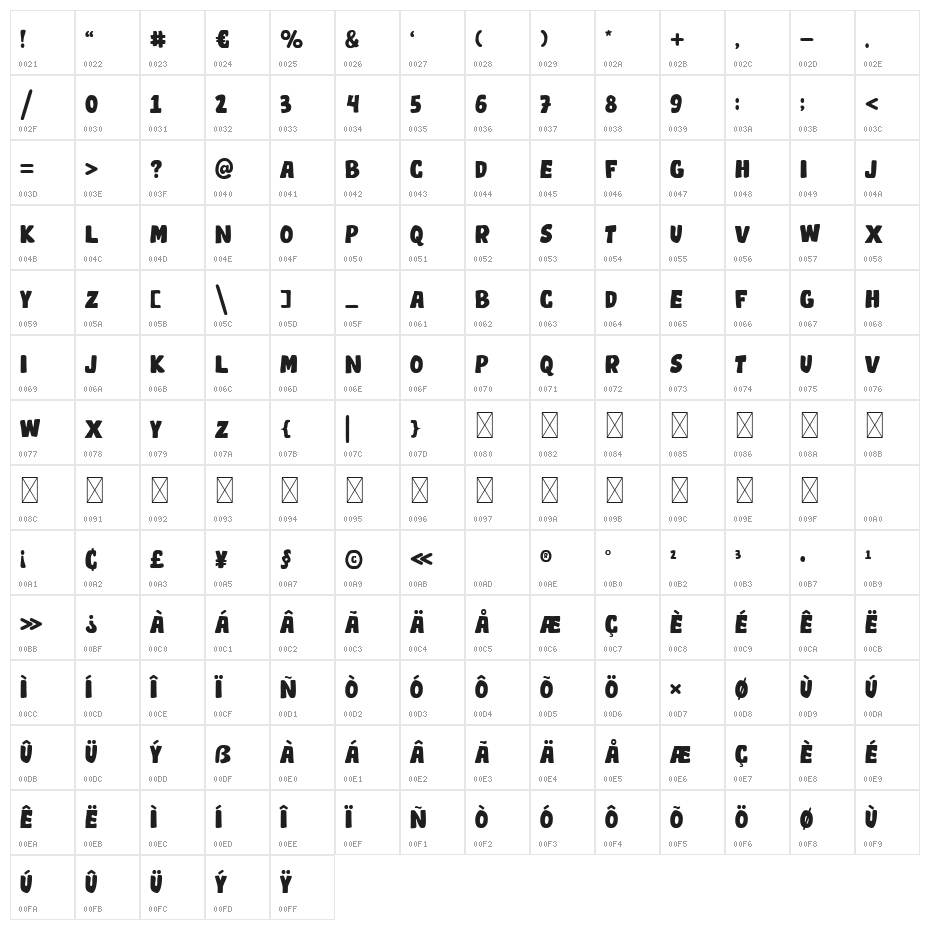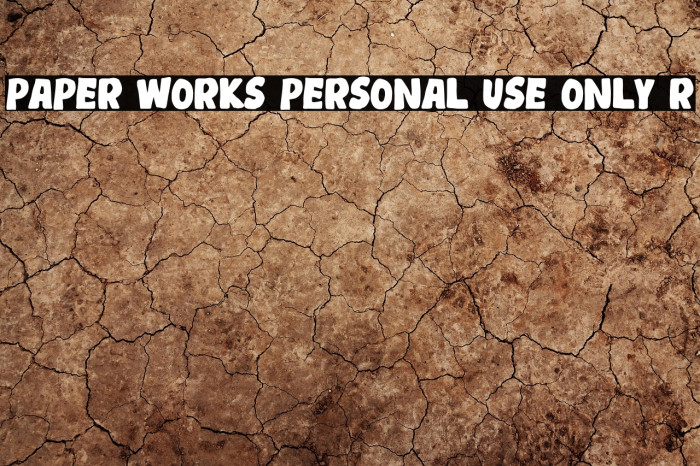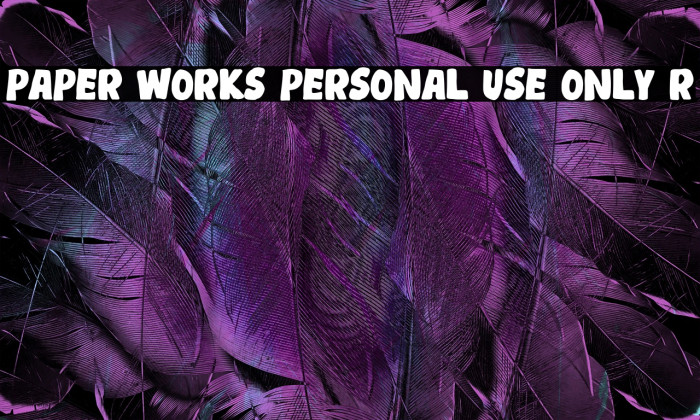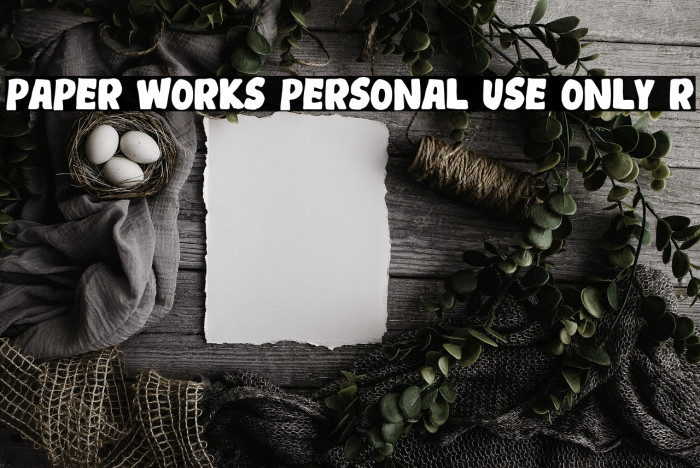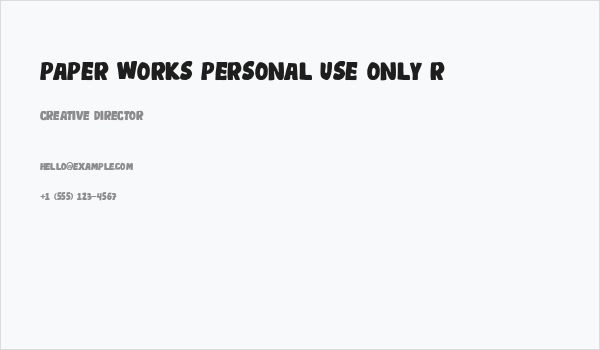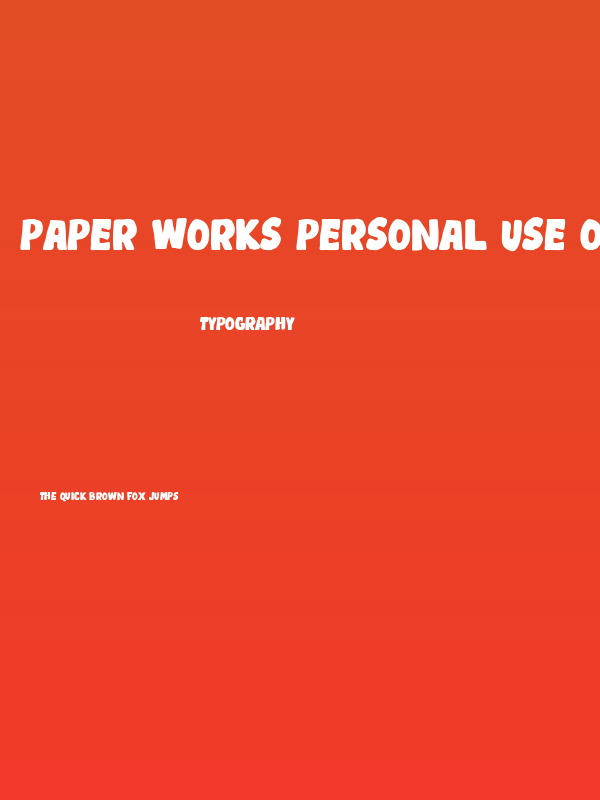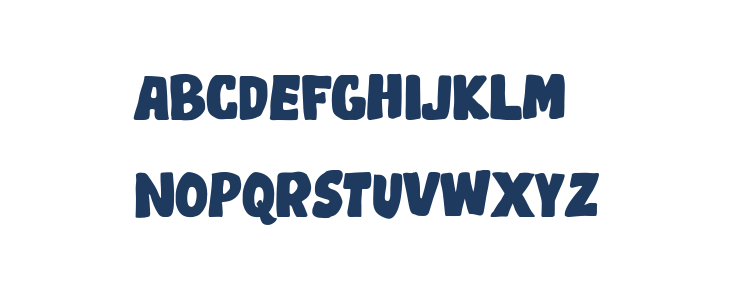
Paper Works Personal Use only R Font
Paper Works Personal Use only R Description
This font features a bold and playful style with a hand-drawn appearance. The characters are thick and rounded, giving them a friendly and approachable look. The uppercase and lowercase letters maintain a consistent weight, contributing to a cohesive design. The numbers and special characters are equally bold, ensuring readability and uniformity across different text elements. This font's unique style makes it suitable for projects that require a touch of creativity and fun.
| Overall Style | Playful and Creative |
| Proposed Projects | Ideal for children's books, playful branding, posters, and creative social media graphics. |